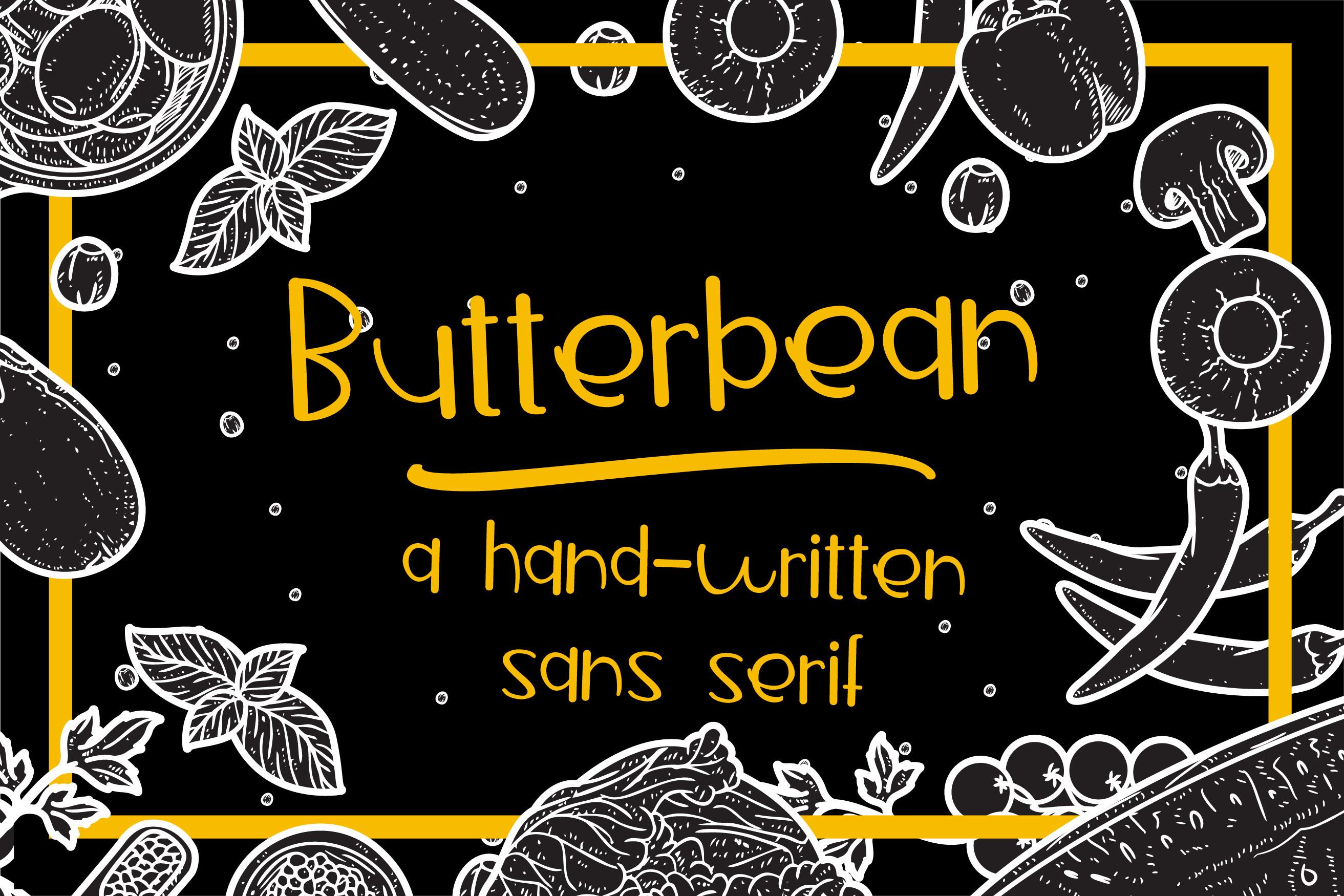
Butterbean Font Description
Butterbean is a cute, friendly and neat handwritten font. It looks as if it was the handwriting of a child, and as a result, this font will be the perfect choice for writing letters to Santa or adding a touch of innocence to your creations.